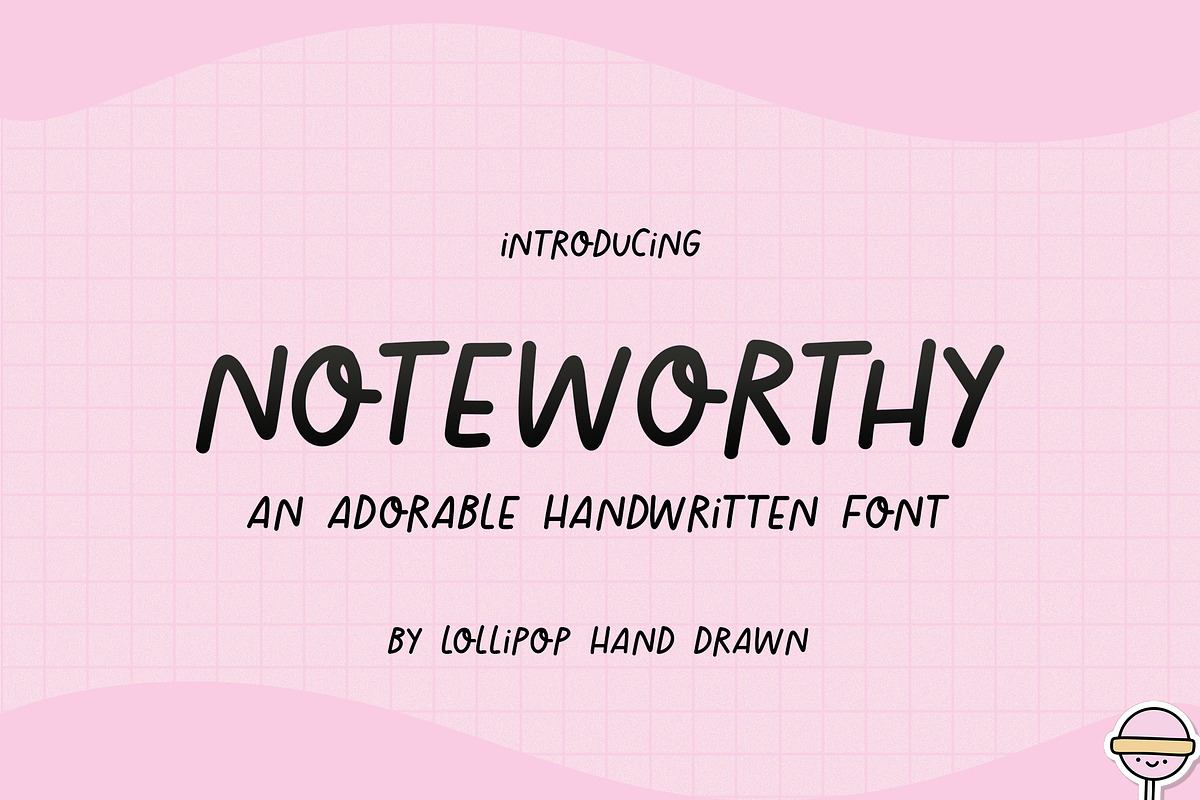
Noteworthy Font Free Download is a clean, handwritten-style typeface that brings a casual and friendly vibe to any design. With its neat, notebook-inspired appearance, Noteworthy is perfect for planners, educational materials, digital notes, social media content, and branding projects that need a personal touch. It strikes a balance between legibility and charm, making it both approachable and stylish.
Designed to mimic natural handwriting with a tidy twist, Noteworthy Font Free Download adds authenticity and warmth to your visual content. Its rounded edges and consistent strokes make it an excellent choice for both professional and creative use — from app interfaces to custom merchandise.